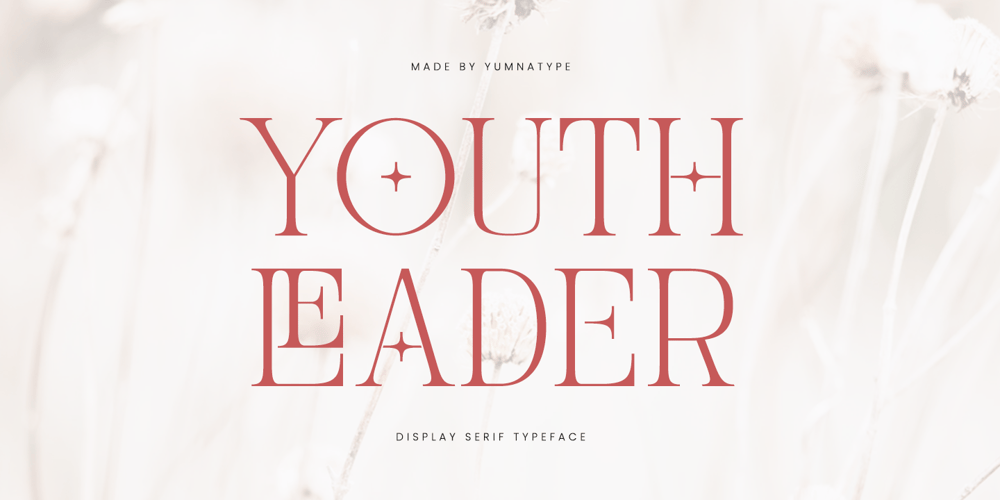
Youth Leader
Youth Leader font
Youth Leader Font Family was designed by Donis Miftahudin and published by Yumna Type. Youth Leader contains 1 styles and family package options. Youth Leader is a bold and commanding serif display font that exudes confidence with its all caps design and sharp corners. Crafted with meticulous attention to detail, this font captures the essence of leadership and strength.Each letter in Youth Leader is meticulously designed with sharp corners, giving it a bold appearance. The all caps design adds to the font’s commanding presence. What sets Youth Leader apart is its versatility and versatility. In addition, enjoy the features here.Features: Ligatures Stylistic Sets Multilingual Supports PUA Encoded Numerals and Punctuations Youth Leader fits in headlines, logos, posters, flyers, branding materials, print media, editorial layouts, and many more designs. Find out more ways to use this font by taking a look at the font preview.Thanks for purchasing our fonts. Hopefully, you have a great time using our font. Feel free to contact us anytime for further information or when you have trouble with the font. Thanks a lot and happy designing.